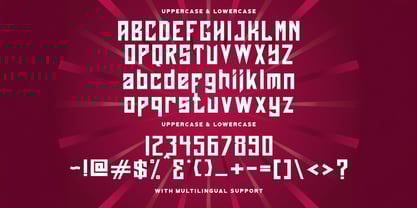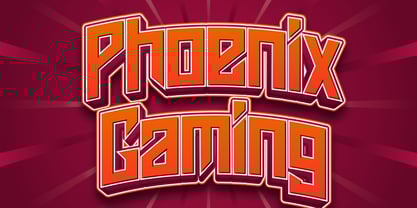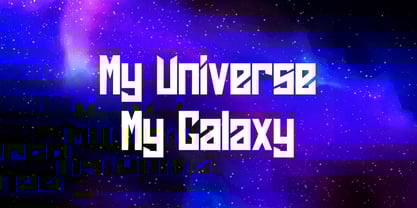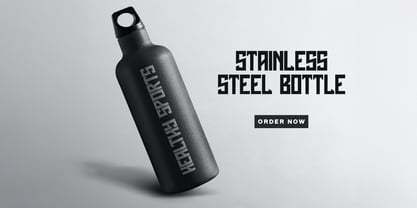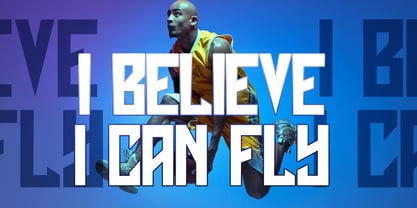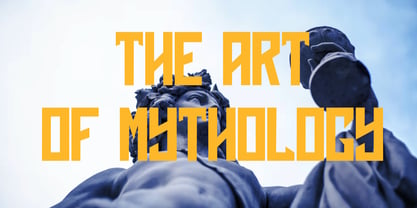
Phoenix Gaming
par Stringlabs Creative Studio
La famille de polices Phoenix Gaming a été conçue par Virgiawan Listanto et publiée par Stringlabs Creative Studio. Phoenix Gaming contient 1 styles.
Phoenix Gaming is a dynamic futuristic sans font designed for high-impact visuals and next-level design. With sharp angles, clean lines, and a digital-tech vibe, this font is built to dominate in gaming, esports, and modern branding.
Concepteurs: Virgiawan Listanto
Éditeur: Stringlabs Creative Studio
Fonderie: Stringlabs Creative Studio